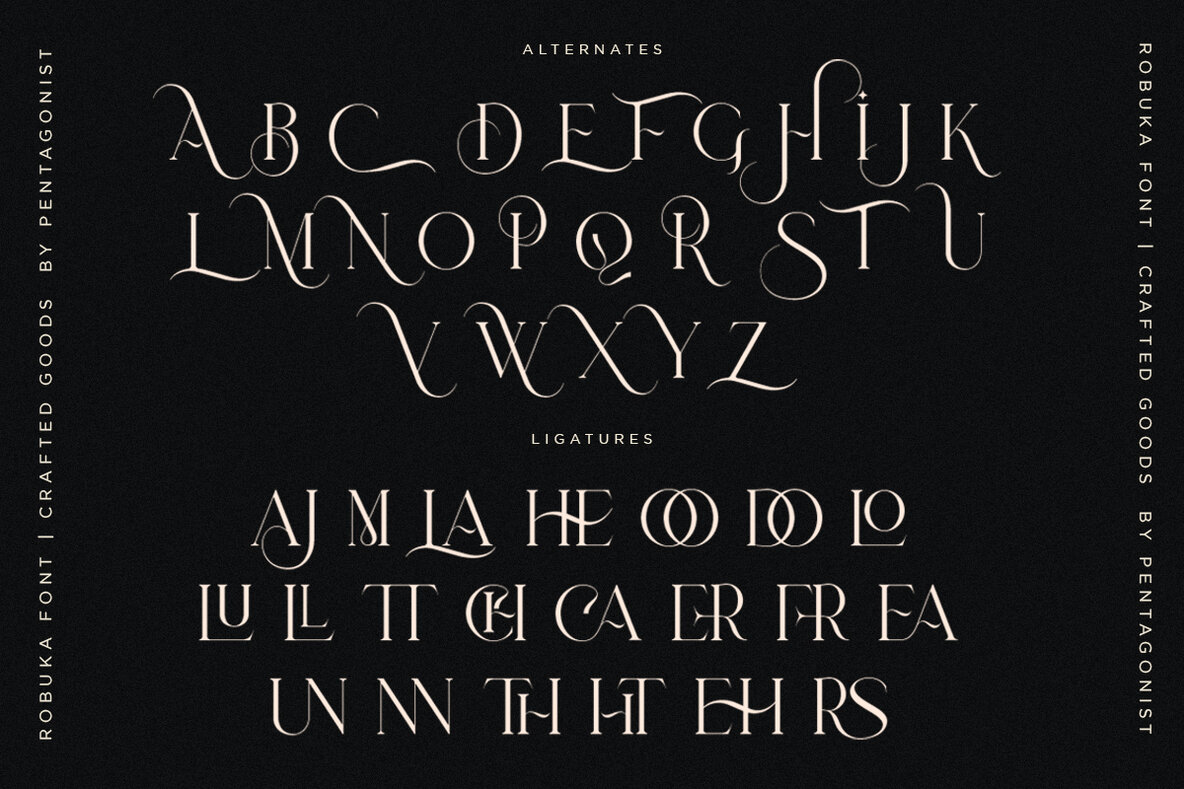
Robuka Font
Robuka Regular
Robuka by Pentagonistudio is a sleek, modern serif font designed with stylistic alternates and ligatures. Its versatile design makes it an excellent choice for various creative projects. No special software is needed—Robuka can be used easily with any basic program or website application that supports standard fonts. For updates on additional glyphs and language support, follow our shop. Feel free to send a message if you have requests for specific languages or features. Have a great day!Robuka: Modern Serif Font with Unique Alternates